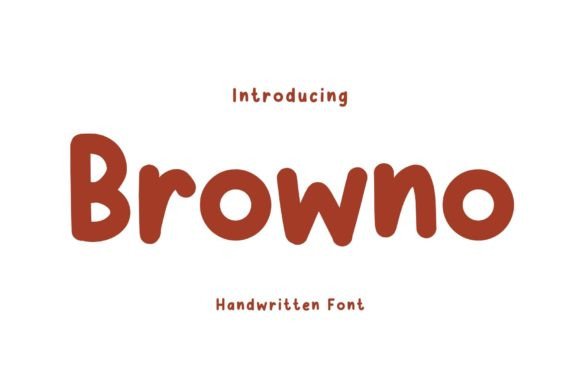
I’ll never forget the time I was working on a branding project for a children’s party planning service. My client wanted a font that was fun, yet professional, and I was determined to find it. After hours of scrolling through font libraries, I stumbled upon Browno Font. It was love at first sight! ✨ The playful, handwritten curves and authentic feel instantly captured the essence of the brand. In this article, I’ll share my experience with Browno Font, its features, and how to make the most of it in your designs.
- ✨ Playful and authentic feel
- 🎨 Perfect for a wide range of design projects, from blog posts to logos and branding
- 💕 Adds a personal touch to any design
While Browno Font is an excellent choice for many projects, there are a few things to keep in mind:
- ⚠️ May not be suitable for very formal or corporate designs
- 🤔 Limited availability of stylistic alternates, but still offers a range of OpenType features
The Backstory of Browno Font
Browno Font was designed with the intention of creating a playful, yet authentic font that could be used in a wide range of design projects. The designer aimed to capture the feeling of handwritten text, while still maintaining legibility and versatility. The result is a font that is both fun and professional, perfect for adding a personal touch to your designs.
Q: What type of projects is Browno Font best suited for?
A: Browno Font is perfect for a wide range of design projects, including blog posts, logos, branding, ads, invitations, greeting cards, planners, photo albums, decorations, and more.
Q: Is Browno Font available in different weights or styles?
A: While Browno Font may not have multiple weights or styles, it still offers a range of OpenType features and glyphs to help you customize your text.